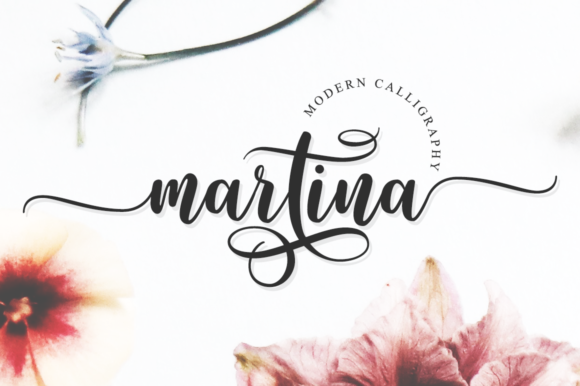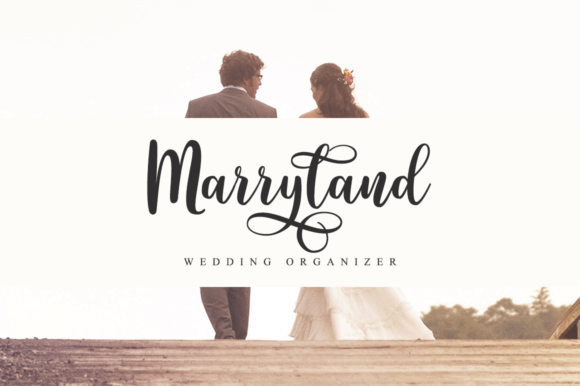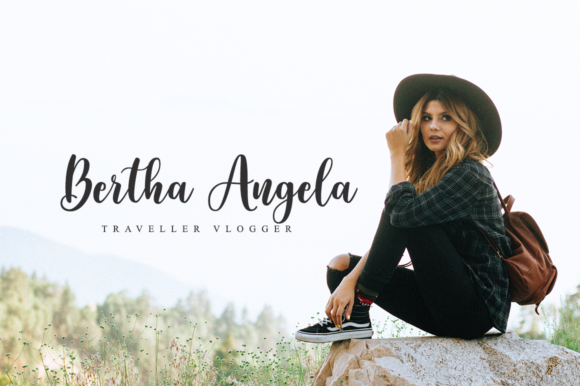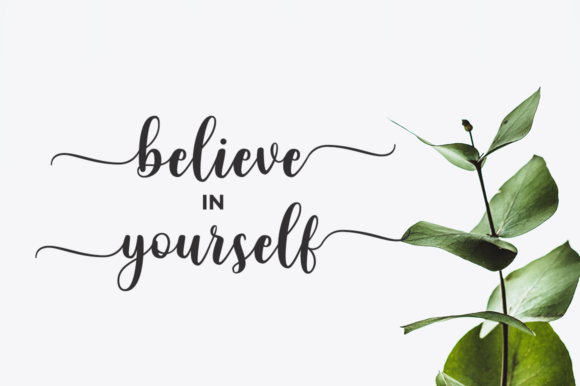
HomeScript FontsMartina Font Script Fonts Martina Font FacebookXPinterestWhatsApp Martina Font Poster 2 Martina Font Poster 3 Martina Font Poster 4 About Martina Font Martina is a cute and fresh calligraphy font. Get inspired by its contemporary coolness! DOWNLOAD NOW People also explored Magneto Farmhouse Font Twilight Font Harmon Sanset Font Sporty Kingsquad Harvest Wishes Font Fox Flower Monogram Font Handmade Notes Font The Gallant Font 271 0 TagsMartina Font Previous articleSchool Mania FontNext articleAmelia Font LEAVE A REPLY Cancel reply Comment: Please enter your comment! Name:* Please enter your name here Email:* You have entered an incorrect email address! Please enter your email address here Website: Save my name, email, and website in this browser for the next time I comment. Personal Use Free Dear Monita Personal Use Free Read more about this font Butter Belly Personal Use Free Read more about this font Theobald Personal Use Free Read more about this font Lemon Milk Font Personal Use Free Read more about this font BLOG Modern Sans-Serif Fonts That Brands Love in 2025 In 2025, modern sans-serif fonts remain a top choice for brands looking to project clarity, professionalism, and... Using Fonts in Digital Marketing: Tips to Strengthen Your Brand Identity Best Fonts for T-Shirt Design – Top 2025 Picks Fonts That Capture the Spirit of New York City